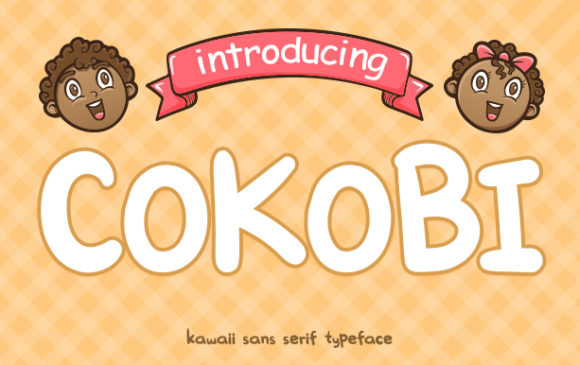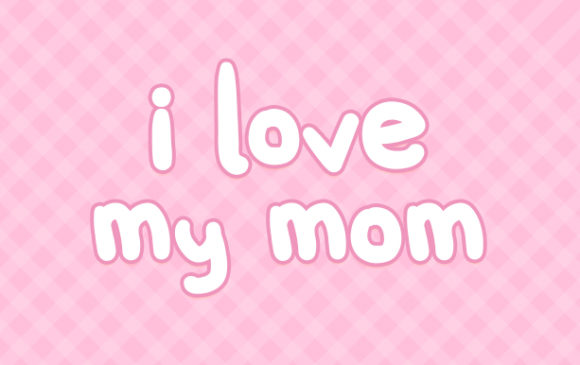
Cokobi
About Cokobi Font
Cokobi is a cute and friendly handwritten font. Add this chunky lettered font to your designs and notice how it makes them come alive!